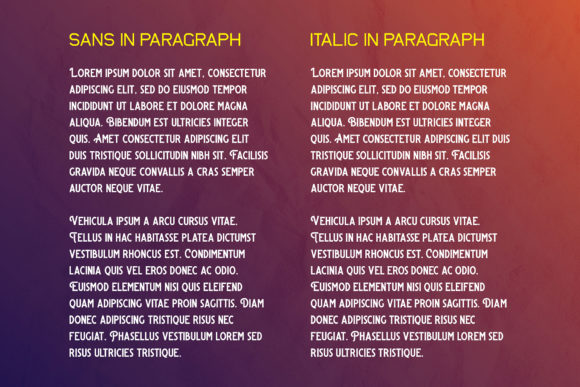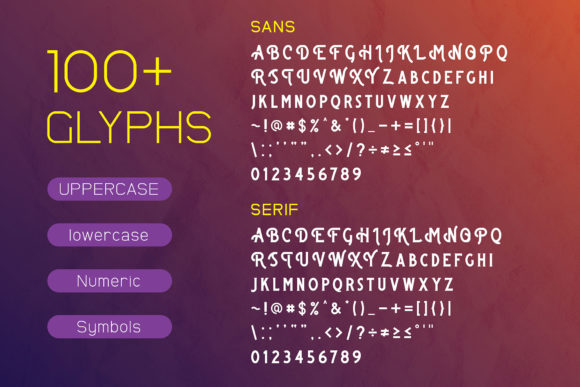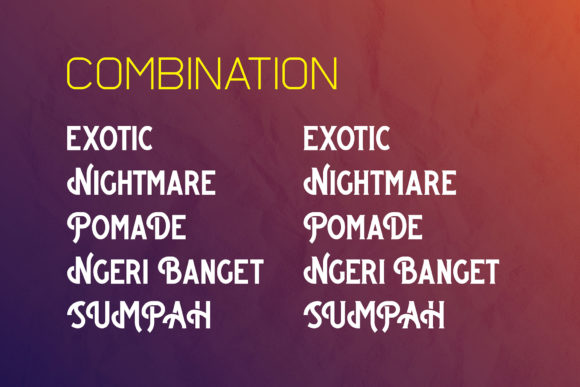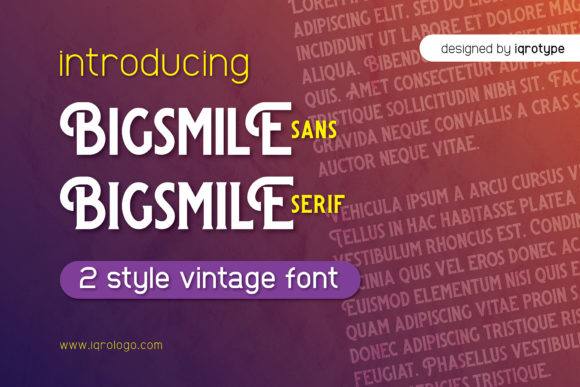
Introducing Bigsmile Font: Elevate Your Designs with Sans and Serif Style
Are you tired of using the same old fonts in your designs? Look no further! Bigsmile font is here to revolutionize your creative process with its sleek and modern sans and serif styles. As a designer or crafter, you know how crucial it is to have a wide range of font options at your disposal. That’s why we’re excited to present Bigsmile font, carefully crafted with attention to detail and a high level of neatness.
What is Bigsmile Font?
Bigsmile font is a versatile and visually appealing font designed to help you create stunning designs. Whether you’re working on a logo, brochure, or social media graphics, this font is perfect for adding a touch of professionalism and style. With two distinct style options – sans and serif – you can choose the one that best suits your design needs.
Key Features of Bigsmile Font
- High Level of Neatness and Detail: Bigsmile font boasts a clean and precise design, ensuring that your text is always legible and visually appealing.
- Sans and Serif Style Options: Choose from two stylish font options to match your design aesthetic.
- Perfect for Designers and Crafters: Whether you’re a seasoned designer or a crafty DIY enthusiast, Bigsmile font is an excellent addition to your font library.
Why Choose Bigsmile Font?
With so many fonts available, why should you choose Bigsmile font? Here are just a few reasons:
- Unique and Modern Design: Bigsmile font offers a fresh and contemporary look that will set your designs apart from the rest.
- Easily Readable: The font’s clean design ensures that your text is always easy to read, making it perfect for body text or headings.
- Versatile: Use Bigsmile font for a wide range of design projects, from print materials to digital graphics.
In conclusion, Bigsmile font is an excellent addition to any designer’s or crafter’s font library. With its modern sans and serif styles, attention to detail, and versatility, this font is perfect for a wide range of design projects. So why wait? Grab Bigsmile font now and take your designs to the next level! Iqrotype is proud to present this amazing font to help you create awesome designs.